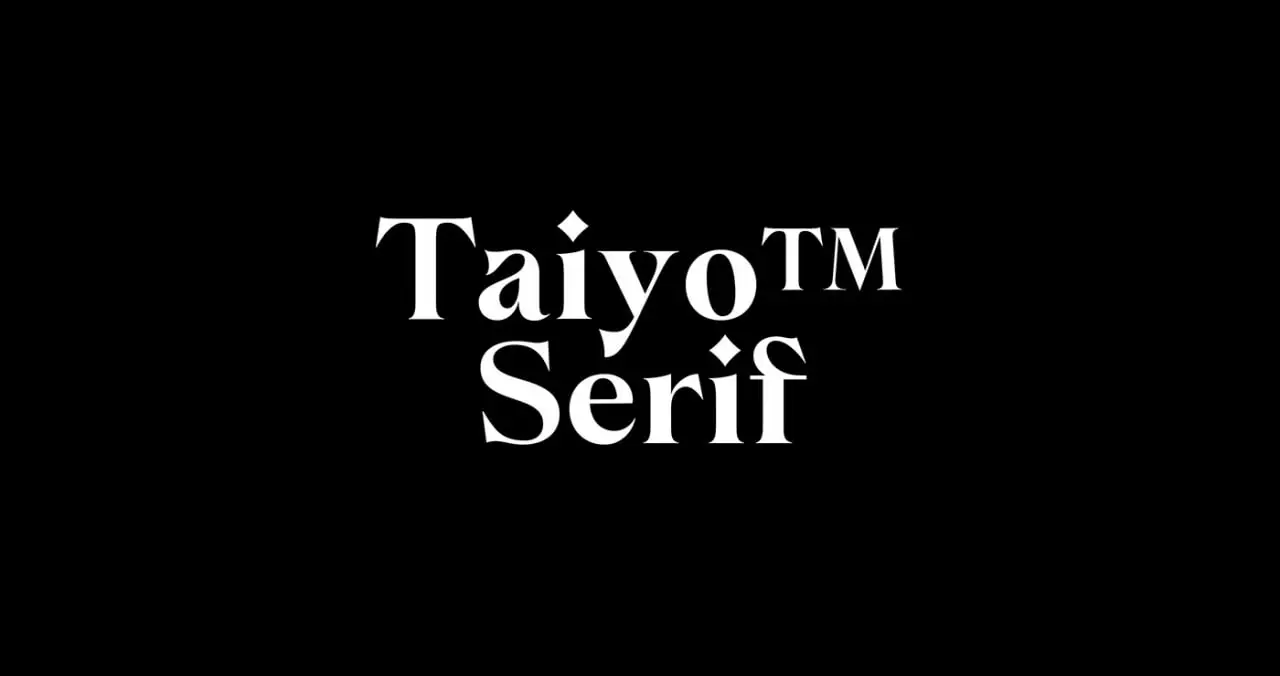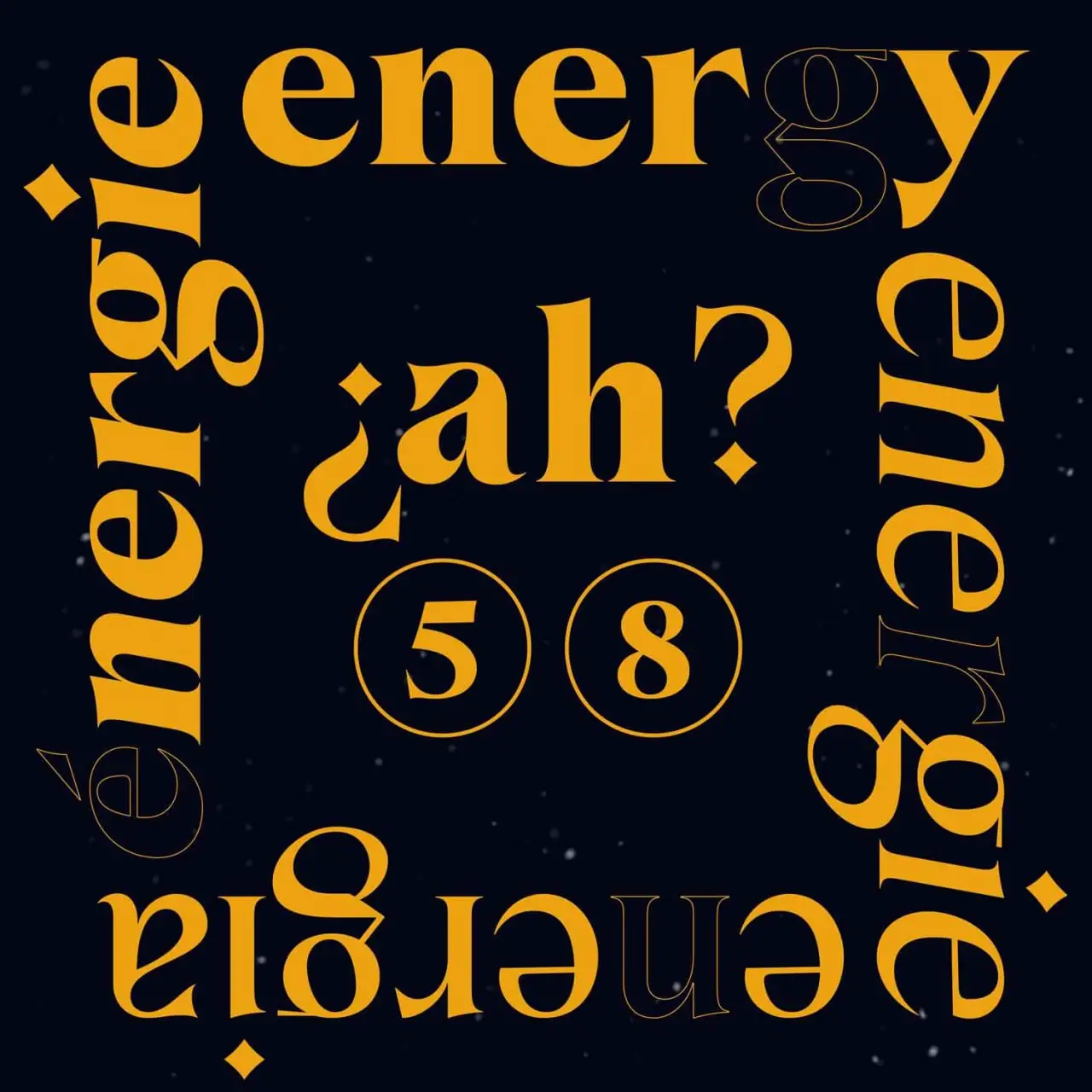
Taiyo™ Serif Font Medium
The Taiyo™ Serif Font Medium is a beautifully crafted typeface that combines elegance with readability. Its classic serif design is perfect for various applications, including branding, editorial design, and print materials.
• Medium weight for versatile use
• Classic serif style
• Clear legibility at various sizes
• Character set includes uppercase, lowercase, numbers, and special characters
Ideal for creating logos, websites, and printed materials where a touch of sophistication is desired. Ensure to pair with complementary sans-serif fonts for a balanced look.